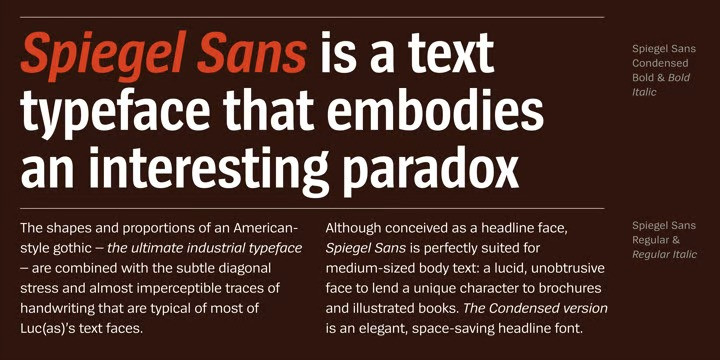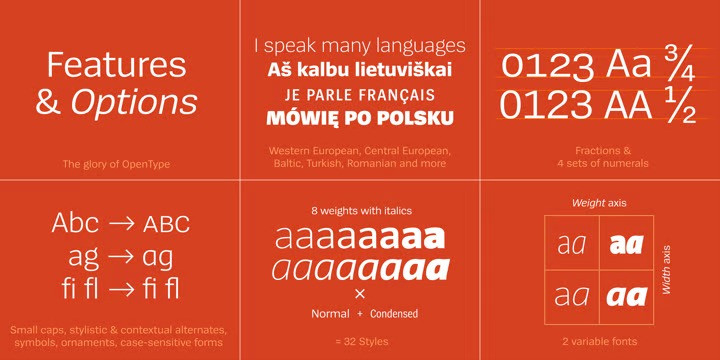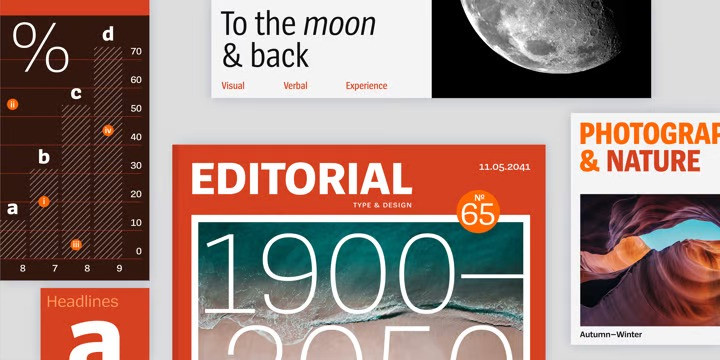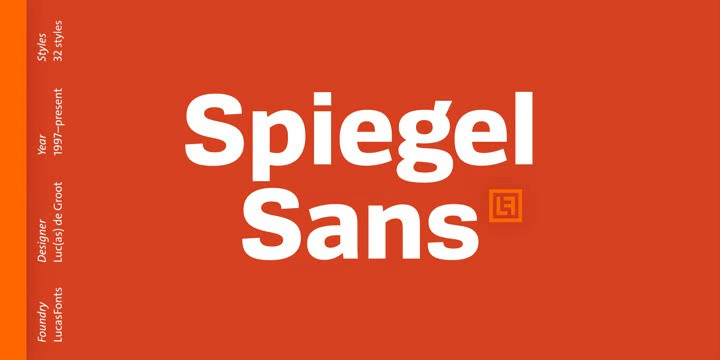
Spiegel Sans Font Family
Spiegel Sans Font is a neo-grotesque with flawless curves. This is a low contrasted and smooth sans serif with subtle and effortless details. Spiegel Sans combines the shapes and proportions of an American-style gothic – the ultimate industrial typeface – with subtle diagonal stress and almost imperceptible traces of handwriting.